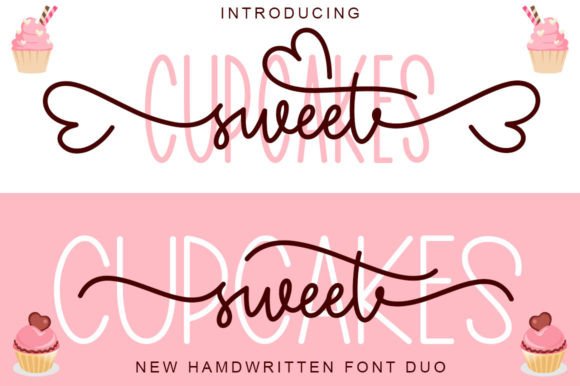
Cupcakes Sweet Duo Font: The Perfect Harmony of Elegance and Charm
In the world of typography, finding the perfect font that combines elegance and charm can be a daunting task. However, with the introduction of Cupcakes Sweet Duo Font, designers and typography enthusiasts can now rejoice. This divine dual font seamlessly marries the sophistication of sans serif and the allure of a script, making it an irresistible choice for various design applications.
The Birth of Cupcakes Sweet Duo
Cupcakes Sweet Duo Font is a harmonious union of two distinct fonts, carefully crafted to provide a unique typographic experience. The sans serif font brings a touch of modernity and elegance, while the script font adds a dash of whimsy and romance. This beautiful combination makes Cupcakes Sweet Duo an excellent choice for designers seeking to create captivating headlines, endearing greeting cards, or any other design project that requires a hint of sophistication and charm.
Key Features of Cupcakes Sweet Duo Font
- Harmonious Union of Two Fonts: Cupcakes Sweet Duo Font combines the best of both worlds, offering a sans serif and a script font that work in harmony to create a unique typographic experience.
- Elegance and Charm: The font’s elegant sans serif and charming script combine to add a touch of romance to any design project.
- Seamless Integration: The font’s design ensures seamless integration into any design canvas, merging typographic charm with functional brilliance.
The Benefits of Cupcakes Sweet Duo Font
Cupcakes Sweet Duo Font offers numerous benefits to designers and typography enthusiasts. Some of the key advantages include:
- Versatility: The dual font system allows designers to experiment with different typographic combinations, making it perfect for a wide range of design applications.
- Unique Typography: Cupcakes Sweet Duo Font’s harmonious union of sans serif and script fonts creates a unique typographic experience that sets it apart from other fonts.
Design Applications for Cupcakes Sweet Duo Font
Cupcakes Sweet Duo Font is an excellent choice for various design applications, including:
- Greeting Cards: The font’s elegant and charming combination makes it perfect for creating endearing greeting cards for special occasions.
- Headlines: Cupcakes Sweet Duo Font’s captivating typography is ideal for creating attention-grabbing headlines that leave a lasting impression.
- Branding: The font’s unique typographic experience makes it an excellent choice for branding projects that require a touch of elegance and charm.
Tips for Using Cupcakes Sweet Duo Font
In conclusion, Cupcakes Sweet Duo Font is a game-changer in the world of typography. Its harmonious union of sans serif and script fonts, combined with its integrated PUA encoding and seamless integration, make it an irresistible choice for designers and typography enthusiasts. Whether you’re creating greeting cards, headlines, or branding projects, Cupcakes Sweet Duo Font is the perfect choice for adding a touch of elegance and charm to your design.